Want to Create a Street and Graffiti-Themed Design? Here’s How to Choose the Best Fonts!
Graffiti and street art-inspired designs bring energy, rebellion, and urban culture to life. Whether you’re working on a streetwear brand, music album cover, or an edgy event poster, choosing the right graffiti-style font is key. Here are some expert tips to help you pick the perfect font, along with top recommendations to enhance your designs.
Tips for Choosing the Right Graffiti Font
- Embrace the Urban Aesthetic
Graffiti fonts often have bold, dynamic strokes, dripping effects, or spray-paint textures that reflect authentic street art. Choose a font that captures the raw, expressive energy of graffiti culture. - Consider Legibility
While graffiti-style fonts can be highly stylized, readability is still essential. For longer text, consider mixing a graffiti font with a clean sans-serif to maintain balance. - Match the Vibe of Your Design
Different graffiti fonts evoke different moods—some are wild and rebellious, while others are more structured and modern. Pick one that aligns with your design’s personality. - Use Colors and Effects Wisely
Bright, high-contrast colors, spray textures, and layering effects can enhance the impact of graffiti fonts, making your design pop. - Ensure Versatility
Whether used on posters, clothing, digital media, or branding, make sure the font works well across different formats and sizes.
Top Graffiti Fonts for Street-Style Designs
To help you create a bold and edgy street art-inspired design, we’ve selected some of the best graffiti fonts available.
1. RASTENKER – Graffiti Font
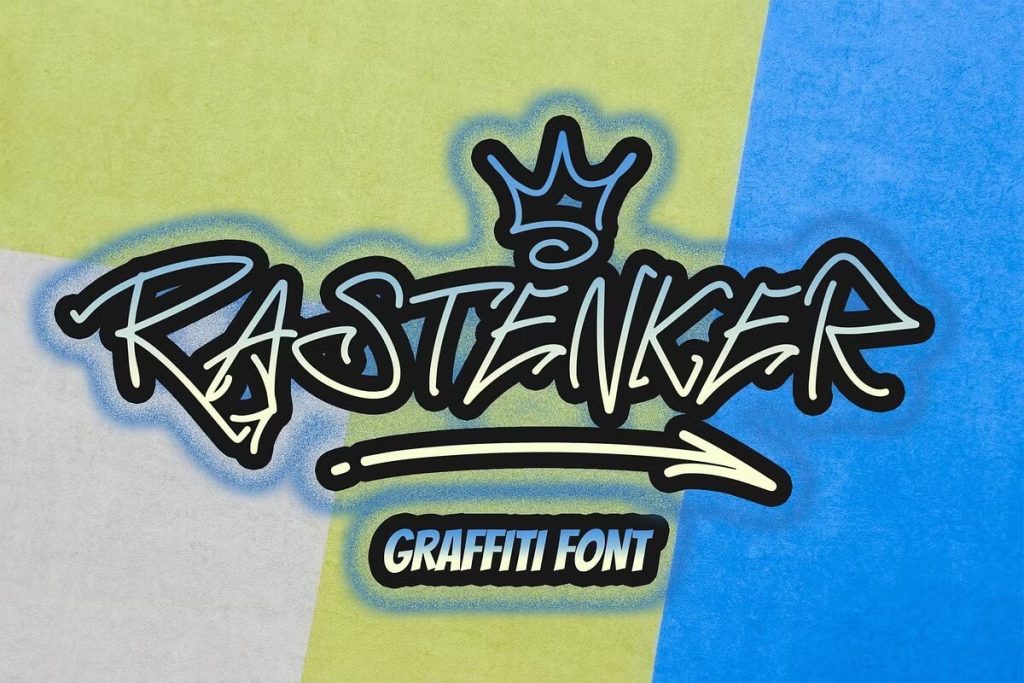
A bold and expressive graffiti font with a raw street style, perfect for posters, album covers, and urban branding. Get it here
2. ENTERWISE – Graffiti Font
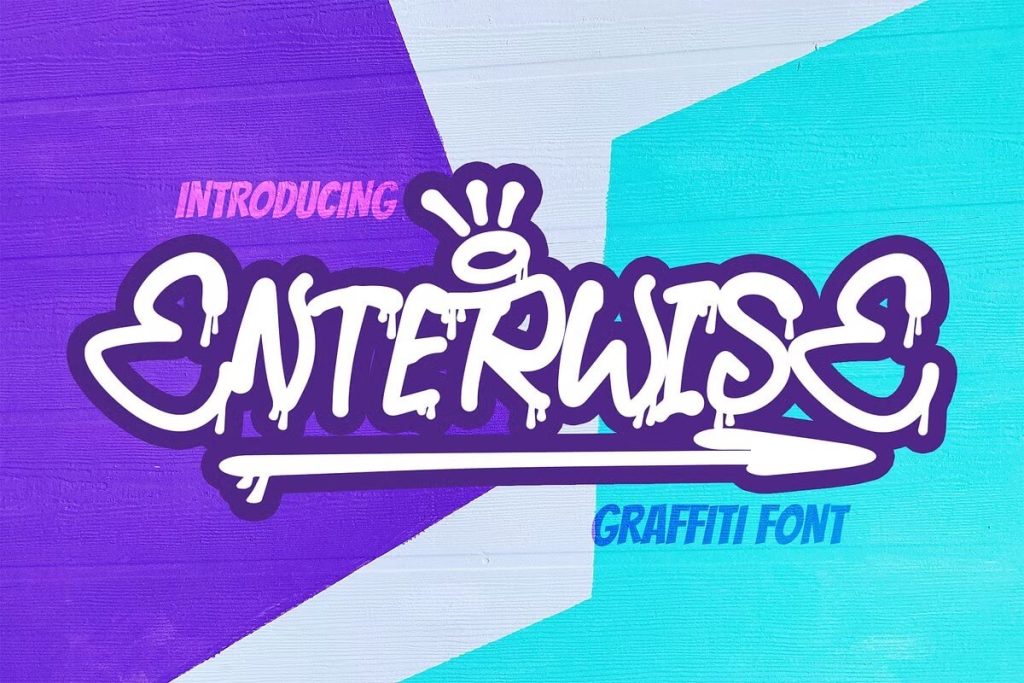
This dynamic font features a mix of spray-paint textures and urban aesthetics, great for modern streetwear designs. Get it here
3. DROPRESS – Graffiti Font
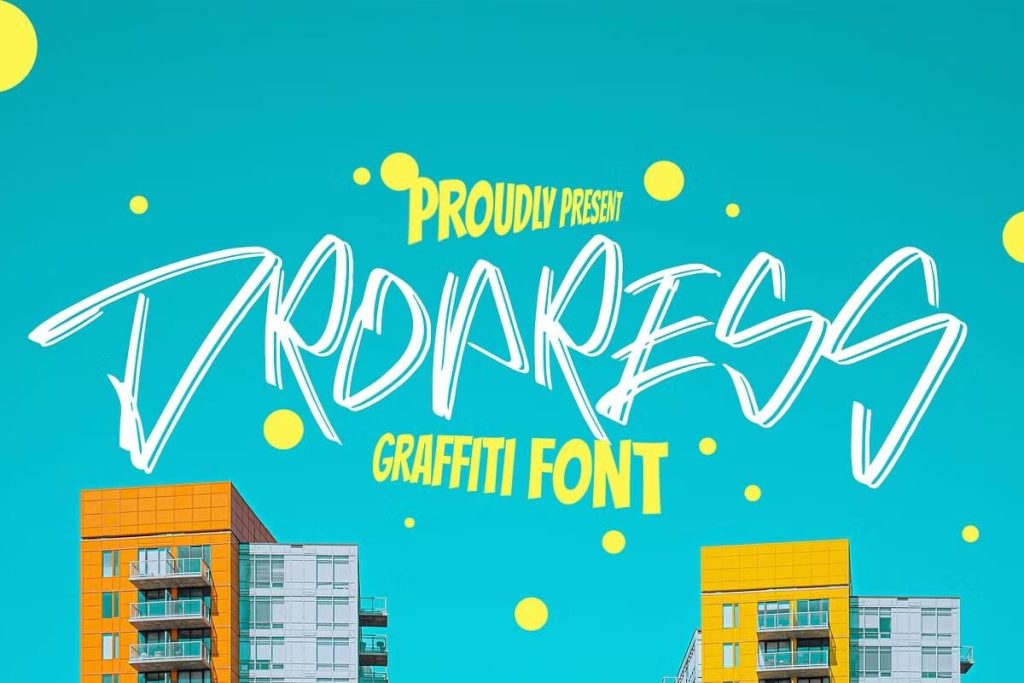
A bold, thick-lettered graffiti font with a playful yet rebellious feel, ideal for energetic branding and social media graphics. Get it here
4. Sion Possible – Graffiti Font
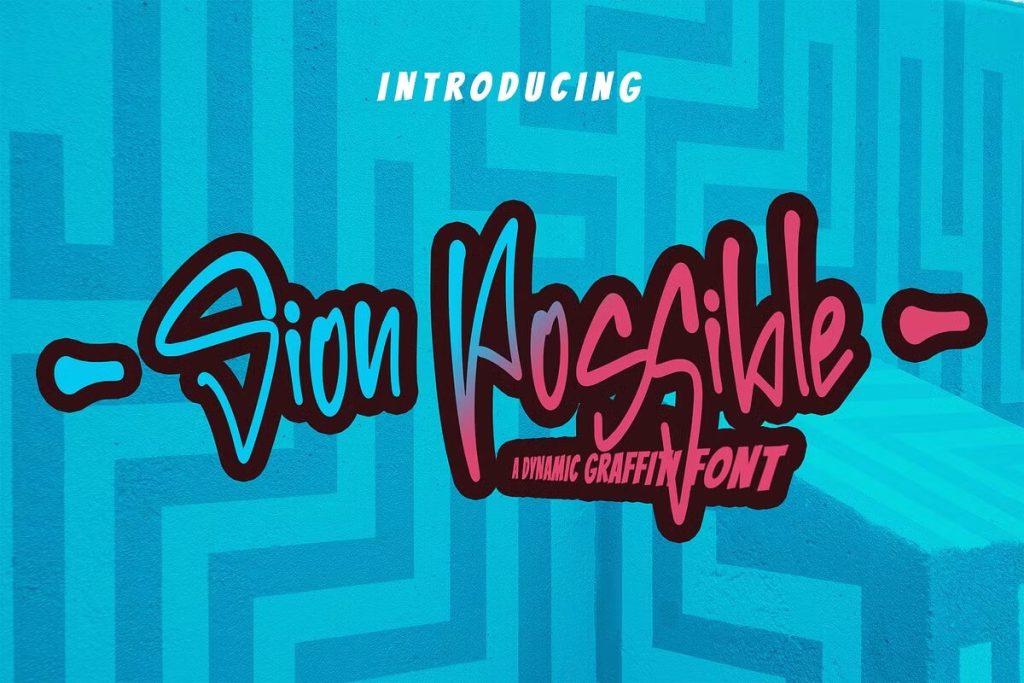
With a unique blend of sharp edges and smooth curves, this font adds a strong street-style touch to any design. Get it here
5. AtteThi – Graffiti Font
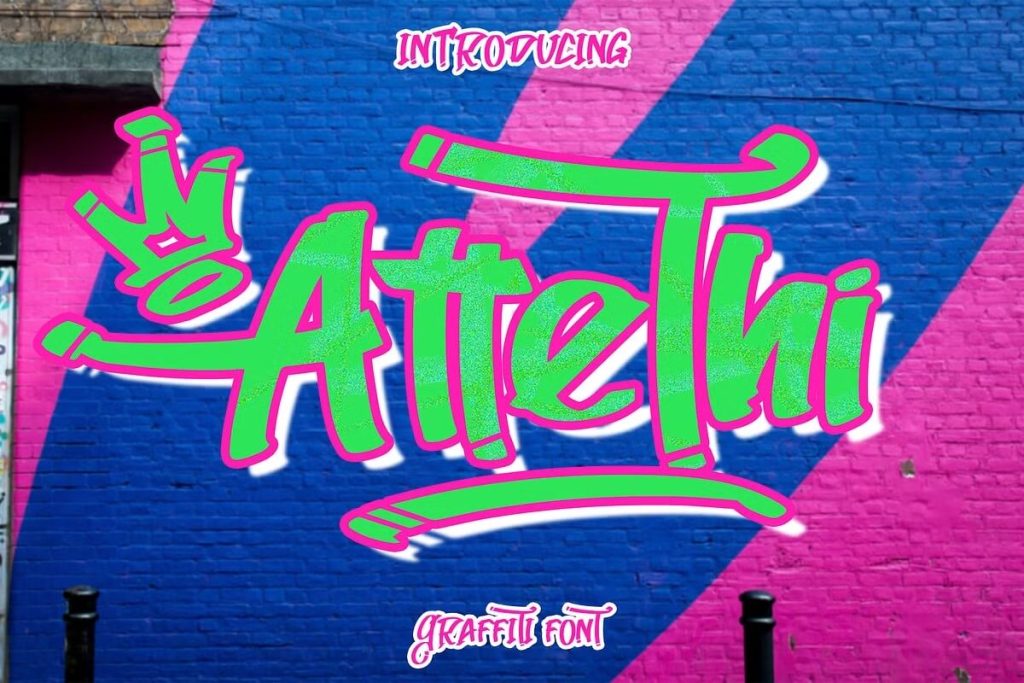
A freestyle-inspired graffiti font with a distinctive hand-drawn look, making it great for graffiti murals, posters, and street art projects. Get it here
Final Thoughts
The right graffiti font can transform your design into a powerful statement of street culture. By selecting fonts that align with your aesthetic and applying them creatively, you can craft bold, eye-catching visuals that stand out. Get inspired and start designing with these top graffiti fonts!